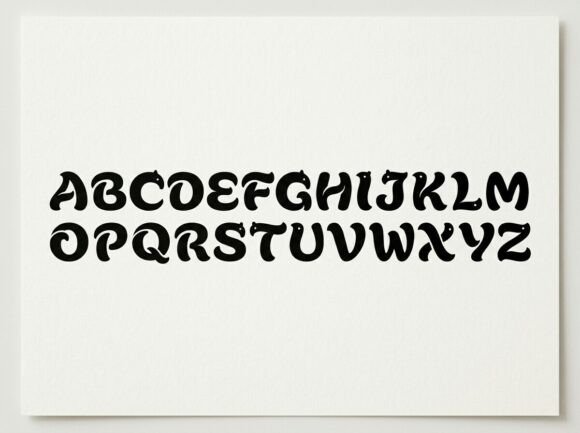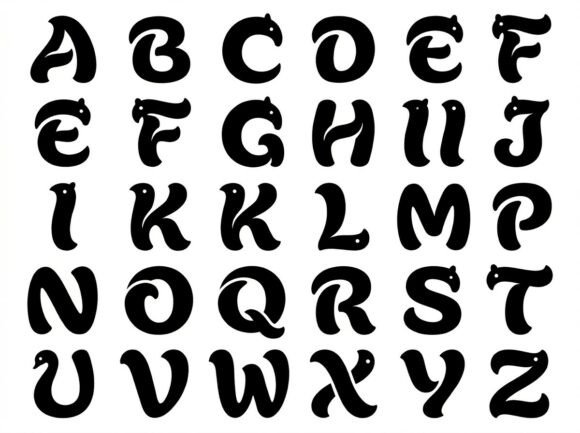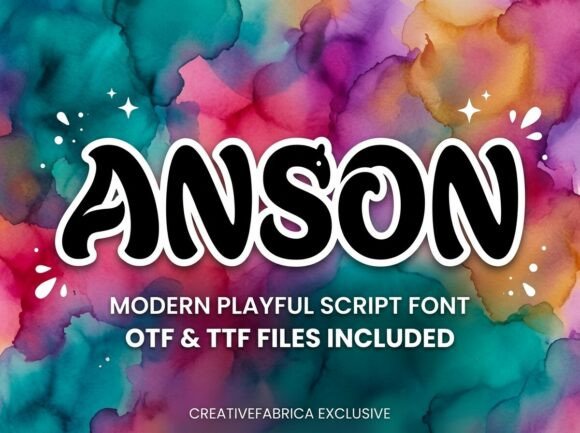
Introducing Anson Font: Where Curiosity Meets Creativity
Are you looking for a font that can add a touch of playfulness and whimsy to your designs? Look no further than Anson, a premium script font that combines the charm of the animal kingdom with a sense of curious joy. This innovative typeface is perfect for designers and crafters who want to infuse their work with a sense of imagination and friendly, artisanal charm.
The Inspiration Behind Anson
Anson is a playful script font that celebrates the charm of the animal kingdom, specifically the sleek and agile otter. The font features bold, fluid letterforms artfully integrated with otter silhouettes, creating a unique and eye-catching visual identity. The clever use of negative space and organic curves brings the playful forms of these aquatic mammals to life, complete with tiny peeking faces and rhythmic tails.
Design Features of Anson Font
Anson font is characterized by its bold, fluid letterforms that are seamlessly integrated with otter silhouettes. The font features:
- Unique otter silhouettes: Each letterform is carefully crafted to incorporate the sleek and agile shape of an otter, adding a touch of playfulness and whimsy to your designs.
- Clever use of negative space: The font’s design makes clever use of negative space to create a sense of movement and fluidity, bringing the otter silhouettes to life.
- Organic curves: The font’s organic curves give it a friendly, artisanal feel that’s perfect for designs that require a touch of personality.
- Tiny peeking faces and rhythmic tails: The otter silhouettes are complete with tiny peeking faces and rhythmic tails, adding a sense of curiosity and playfulness to your designs.
Use Cases for Anson Font
Anson font is an exceptional choice for a variety of design projects, including:
- Wildlife-themed branding: Anson font is perfect for branding projects that require a touch of playfulness and whimsy, such as wildlife conservation logos or animal-themed product packaging.
- Children’s product packaging: The font’s playful and imaginative design makes it an excellent choice for children’s product packaging, such as toys, books, or games.
- Aquatic center logos: Anson font is also suitable for aquatic center logos, adding a touch of friendliness and approachability to your brand’s visual identity.
- Vibrant social media headers: The font’s bold and playful design makes it perfect for social media headers, helping you stand out in a crowded online space.
Benefits of Using Anson Font
By using Anson font in your designs, you can:
- Add a touch of playfulness and whimsy: Anson font is designed to bring a sense of curious joy to your designs, making it perfect for projects that require a touch of personality.
- Create a unique visual identity: The font’s unique design features ensure that your designs stand out from the crowd, creating a memorable and engaging visual identity.
- Convey a sense of friendliness and approachability: Anson font’s organic curves and playful design convey a sense of friendliness and approachability, making it perfect for brands that want to connect with their audience.
Anson font is a premium script font that combines the charm of the animal kingdom with a sense of curious joy. Its unique design features, including bold, fluid letterforms and otter silhouettes, make it an exceptional choice for designers and crafters who want to infuse their work with a sense of imagination and friendly, artisanal charm. Whether you’re working on wildlife-themed branding, children’s product packaging, or vibrant social media headers, Anson font is sure to bring a touch of playfulness and whimsy to your designs.